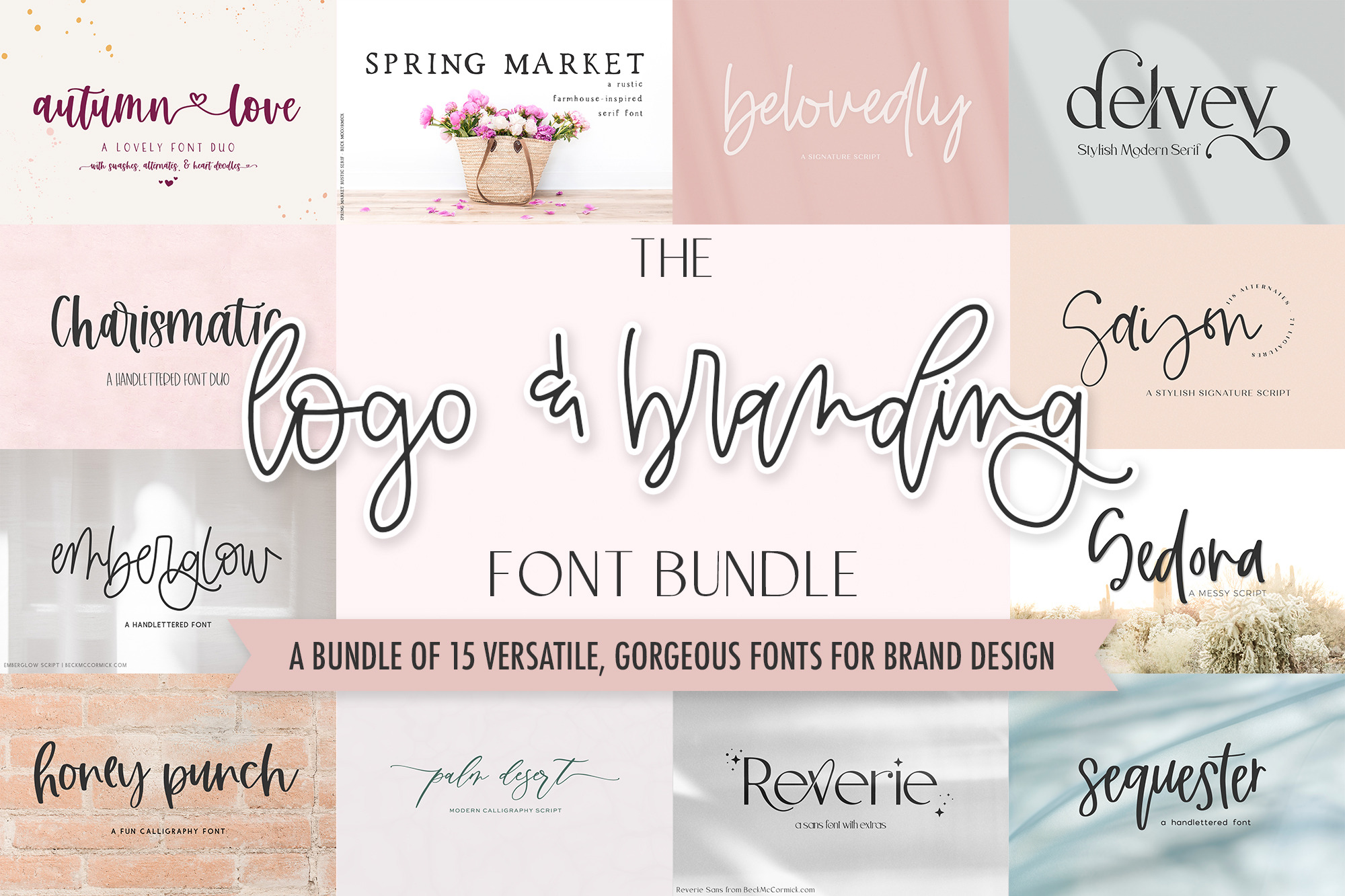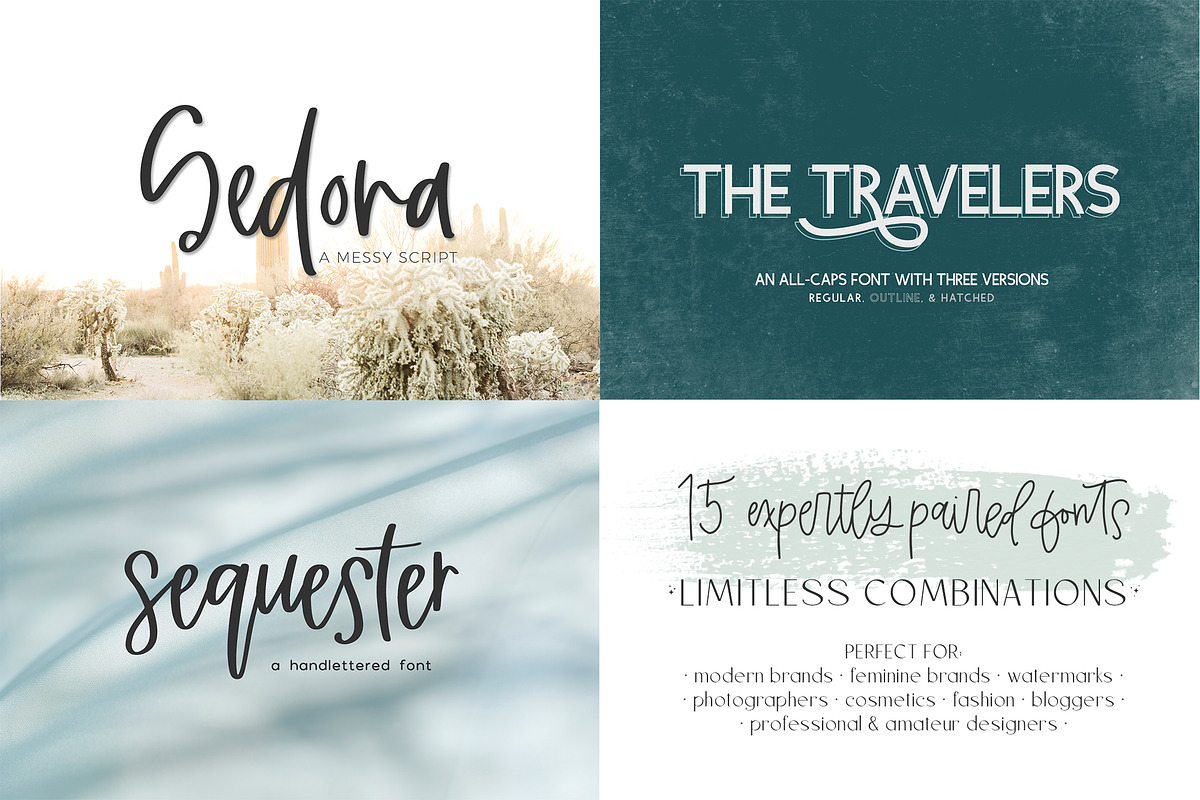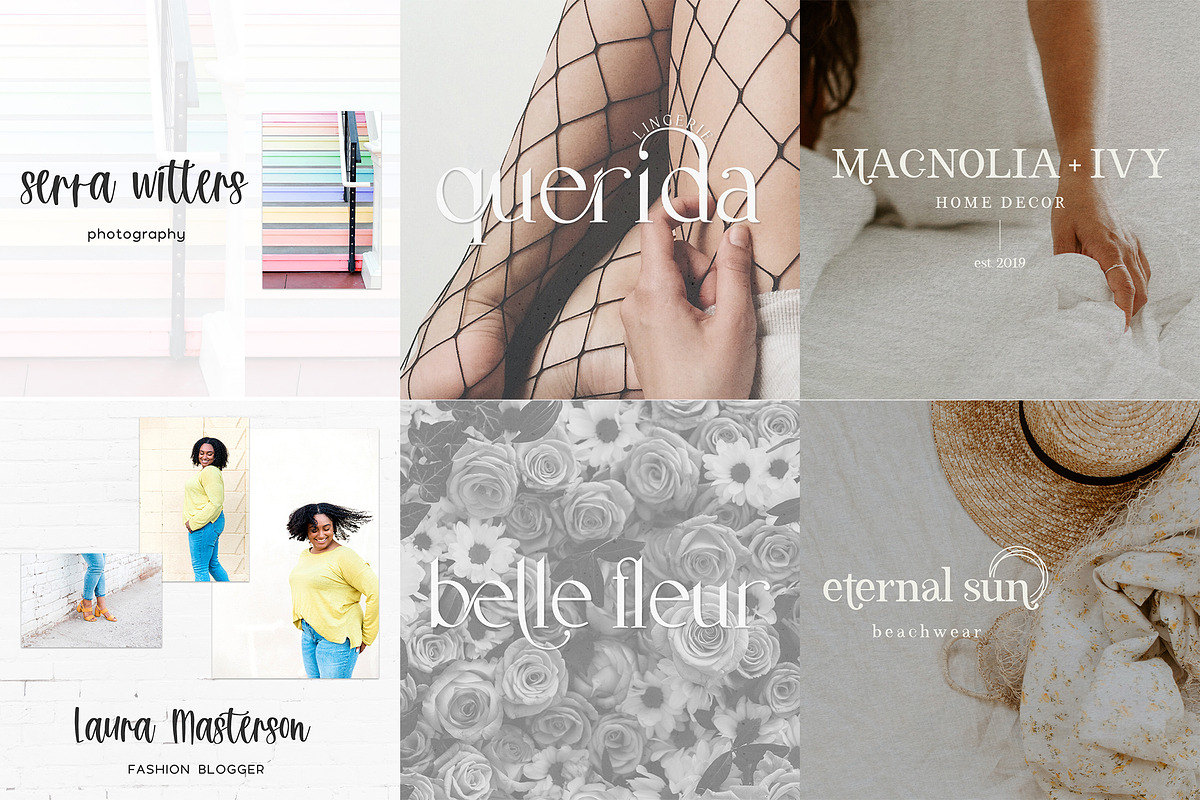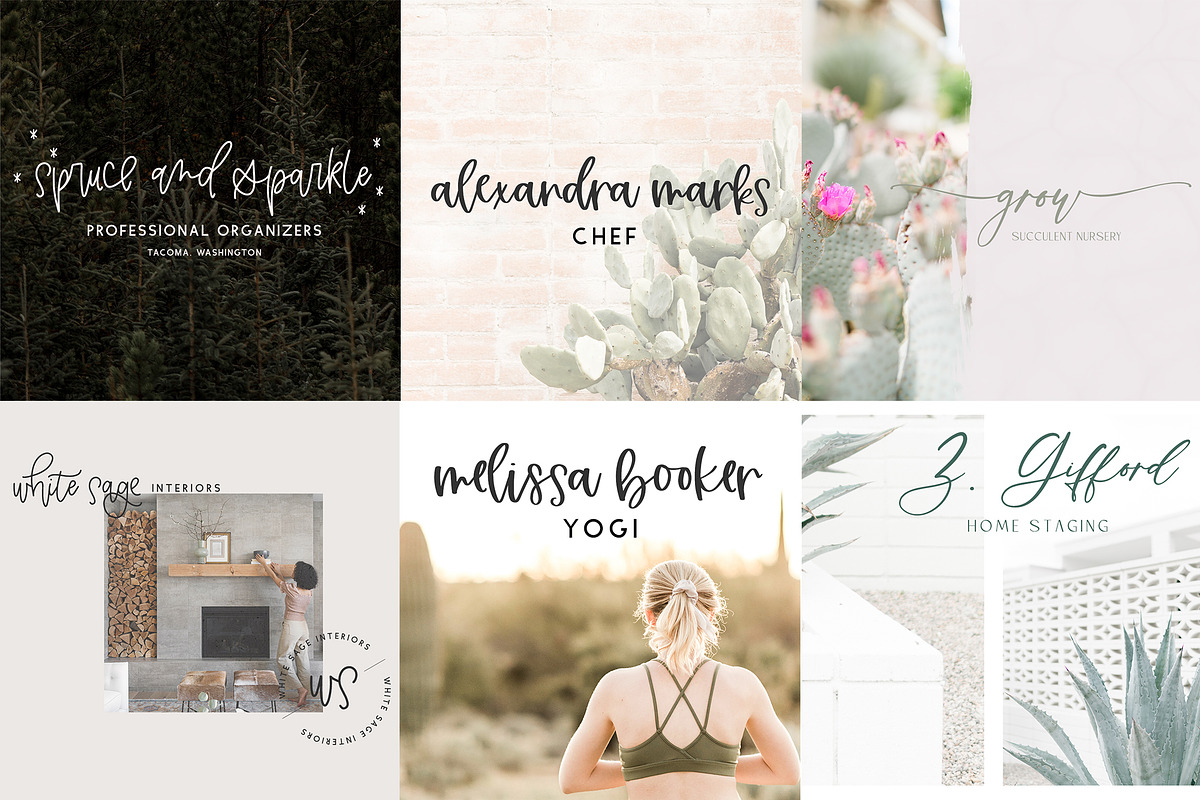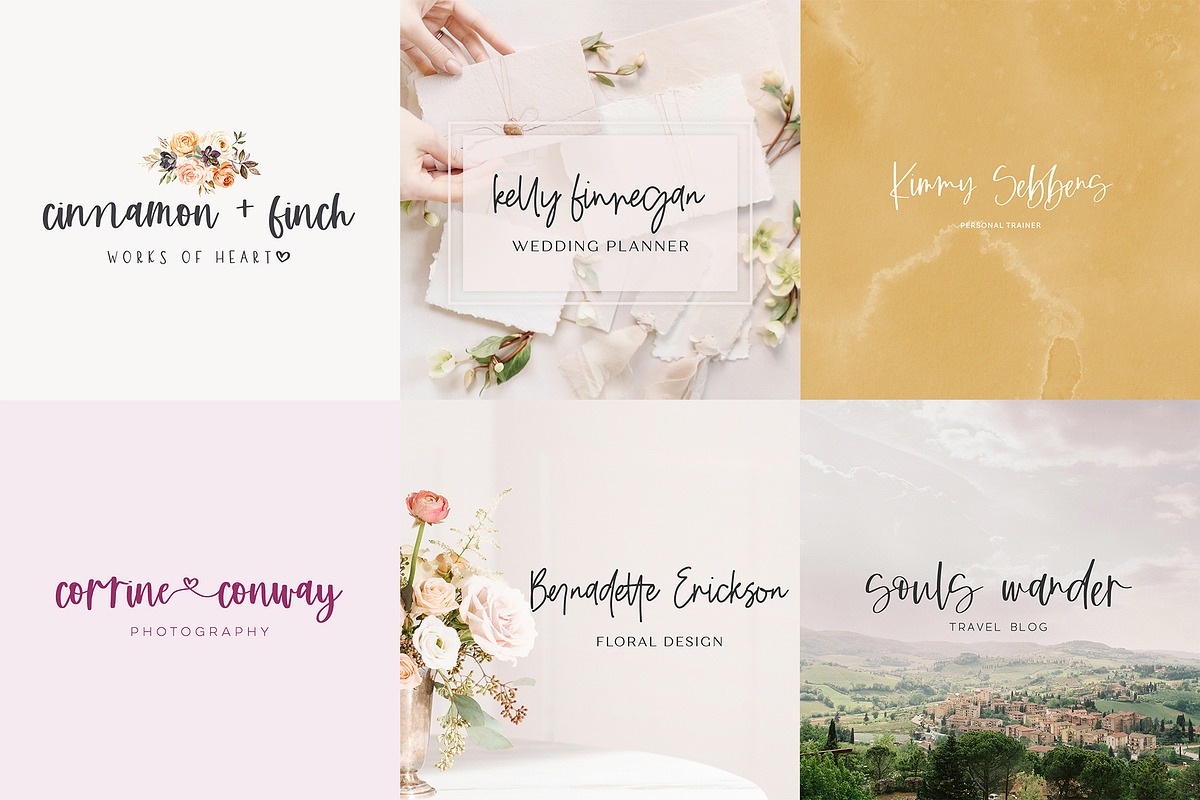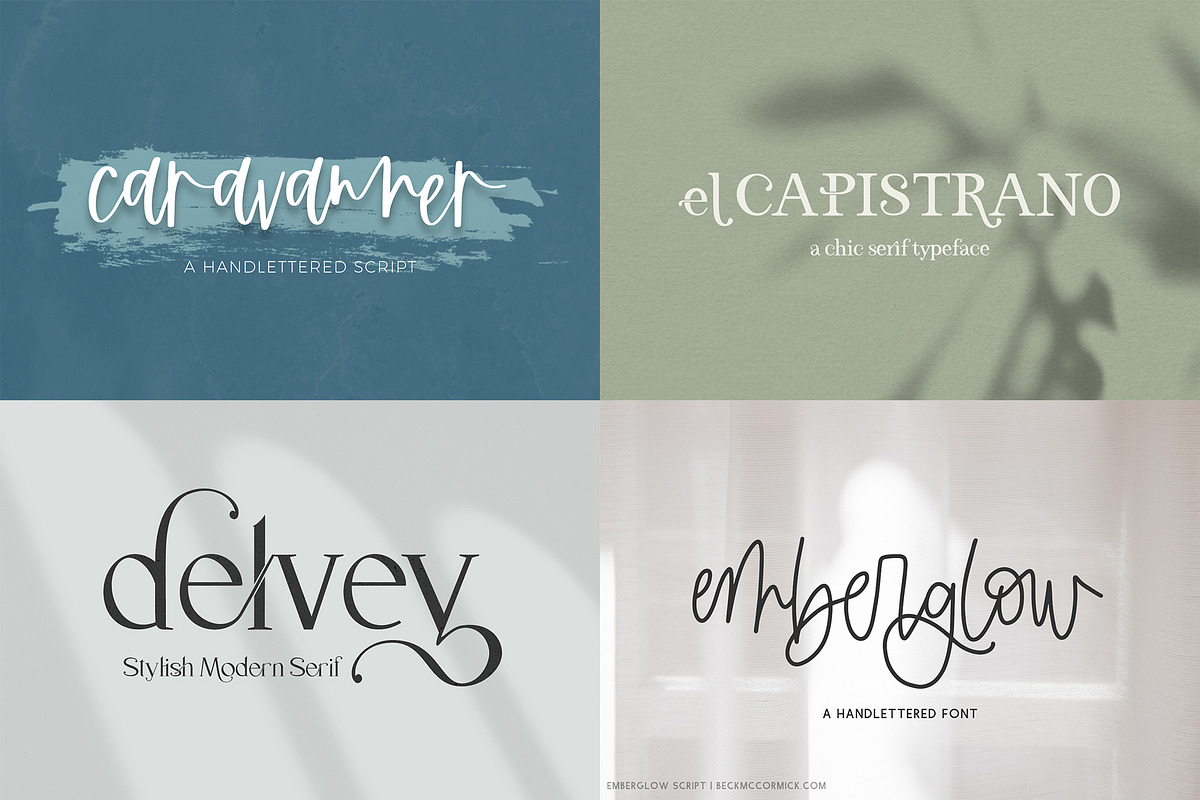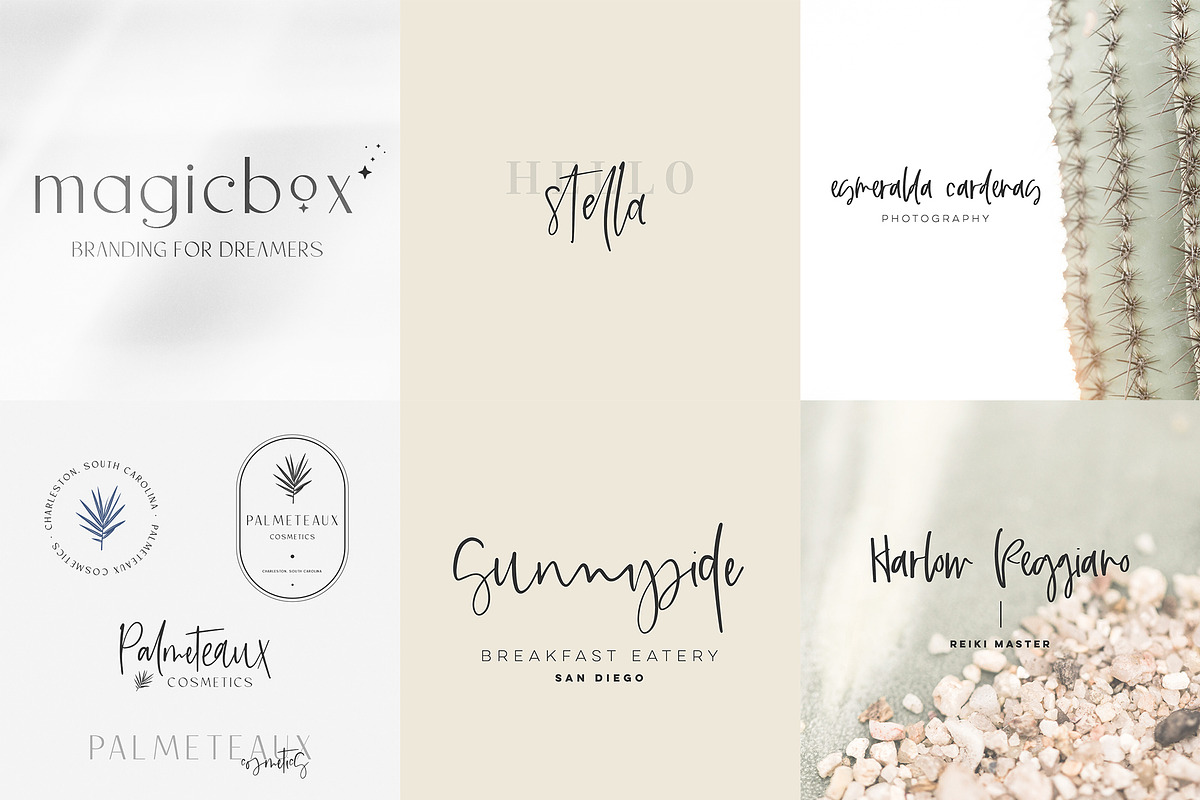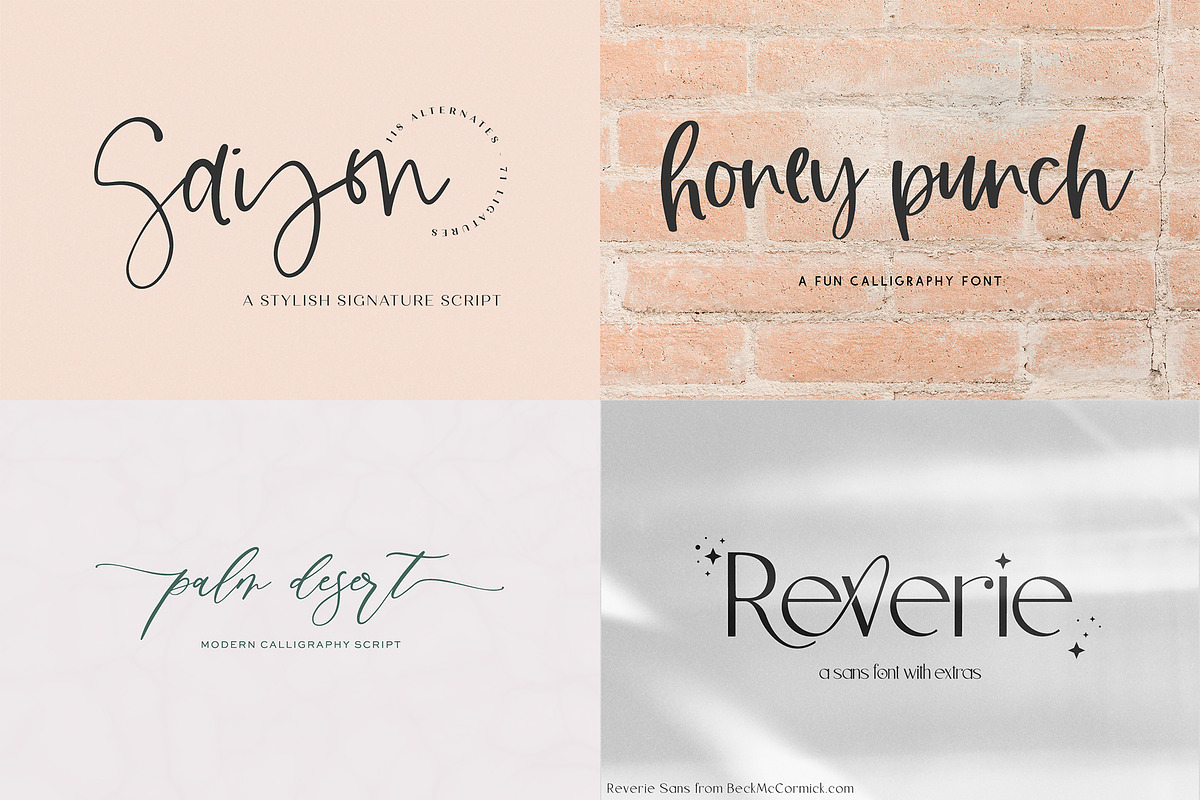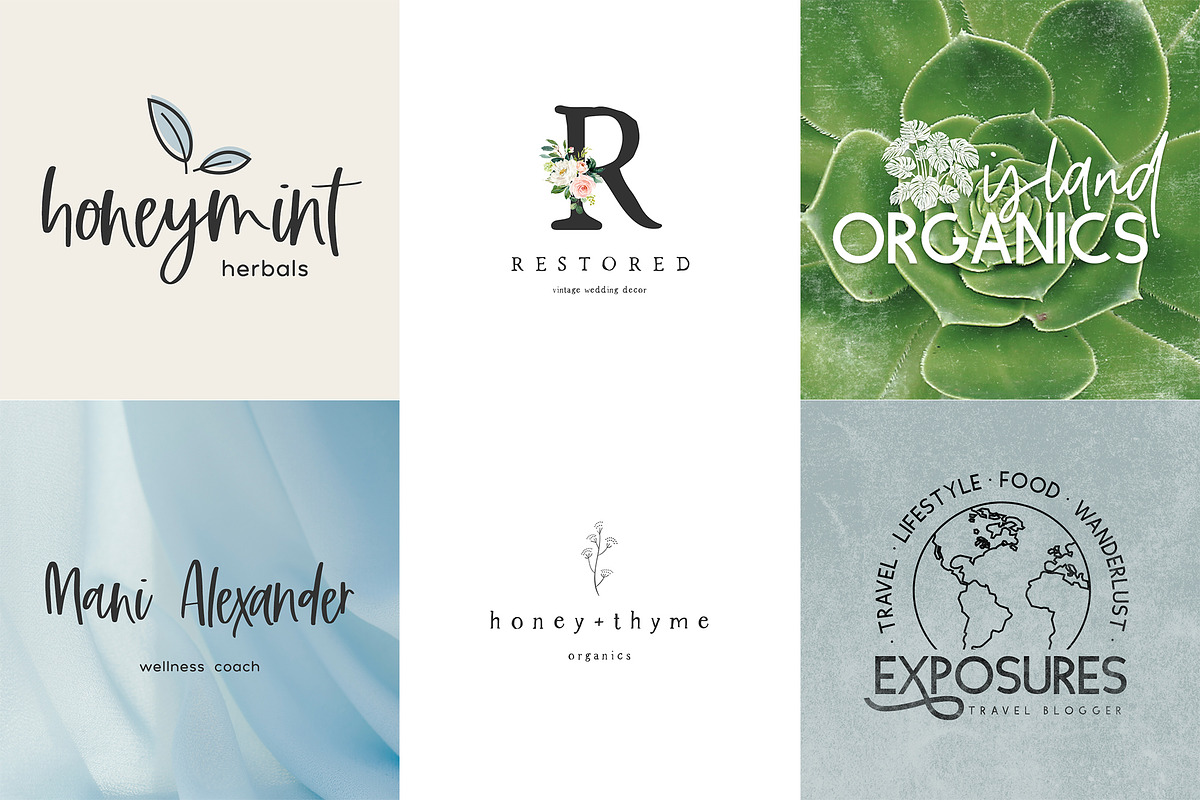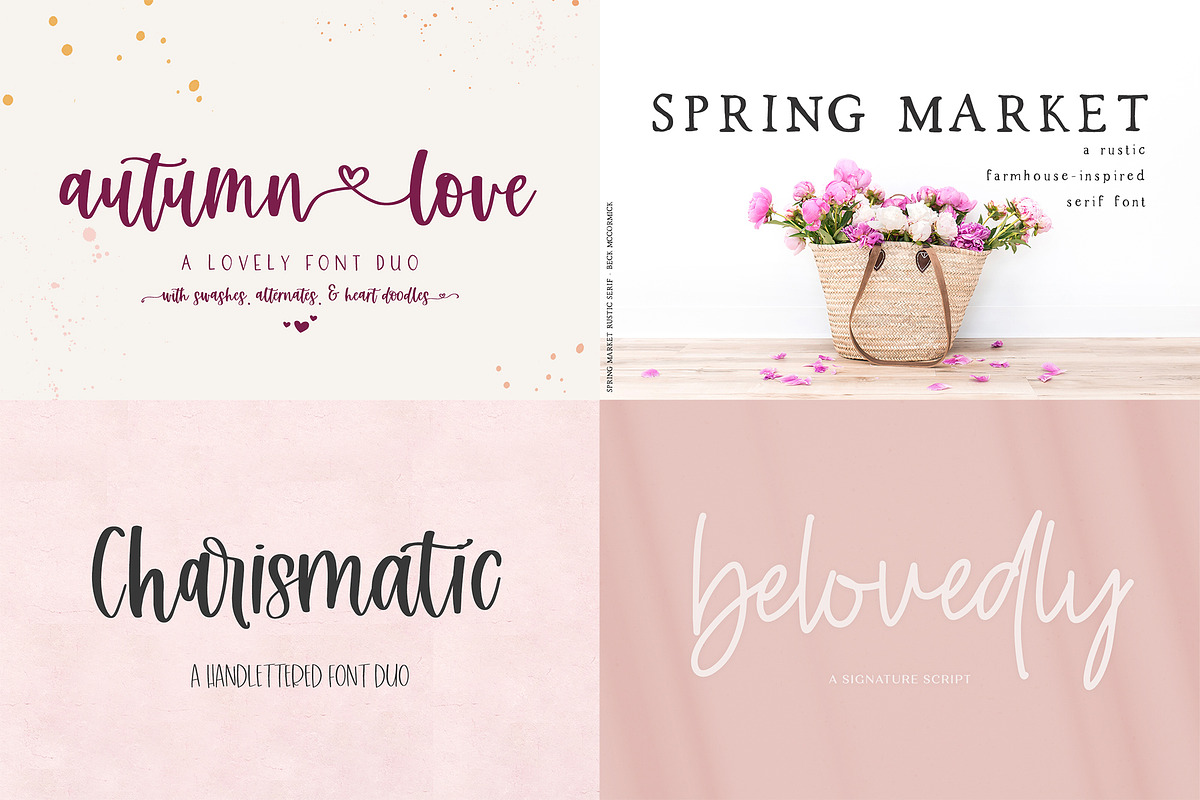
The Logo and Branding Font Bundle
Enjoy 15 versatile, easy to use fonts that are perfect for all of your logo & branding needs. It doesn’t matter if you’re a professional designer, or someone looking to design their own beautiful brand on a budget - this bundle has a little bit of everything so that you can create aesthetically pleasing logos and branded collateral materials for social media, print, & your website! You’ll find feminine calligraphy fonts, casual signature-style fonts, sans fonts, & serif fonts.
This bundle includes:
- Autumn Love Calligraphy Script & Sans Duo (two fonts!)
- Belovedly Signature Script
- Caravanner Signature Script
- Charismatic Script & Sans Duo (two fonts!)
- Delvey Modern Serif
- El Capistrano Serif
- Emberglow Signature Script
- Honey Punch Modern Calligraphy Script
- Palm Desert Calligraphy Script
- Reverie Modern Sans
- Saison Signature Script
- Sedona Signature Script
- Sequester Modern Calligraphy Script
- Spring Market Handlettered Rustic Serif
- The Travelers Sans in Regular, Outline, and Hatched (three fonts!)